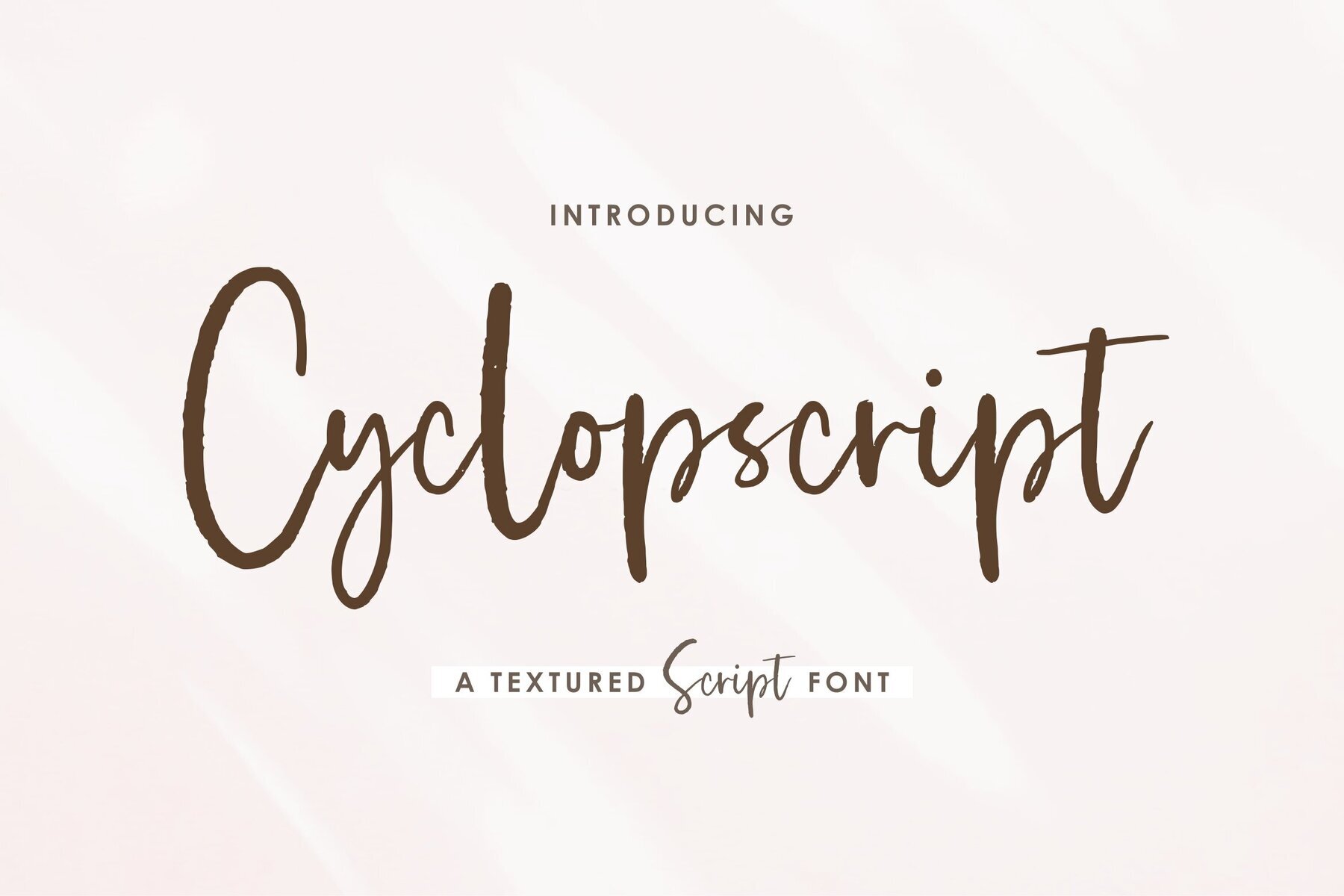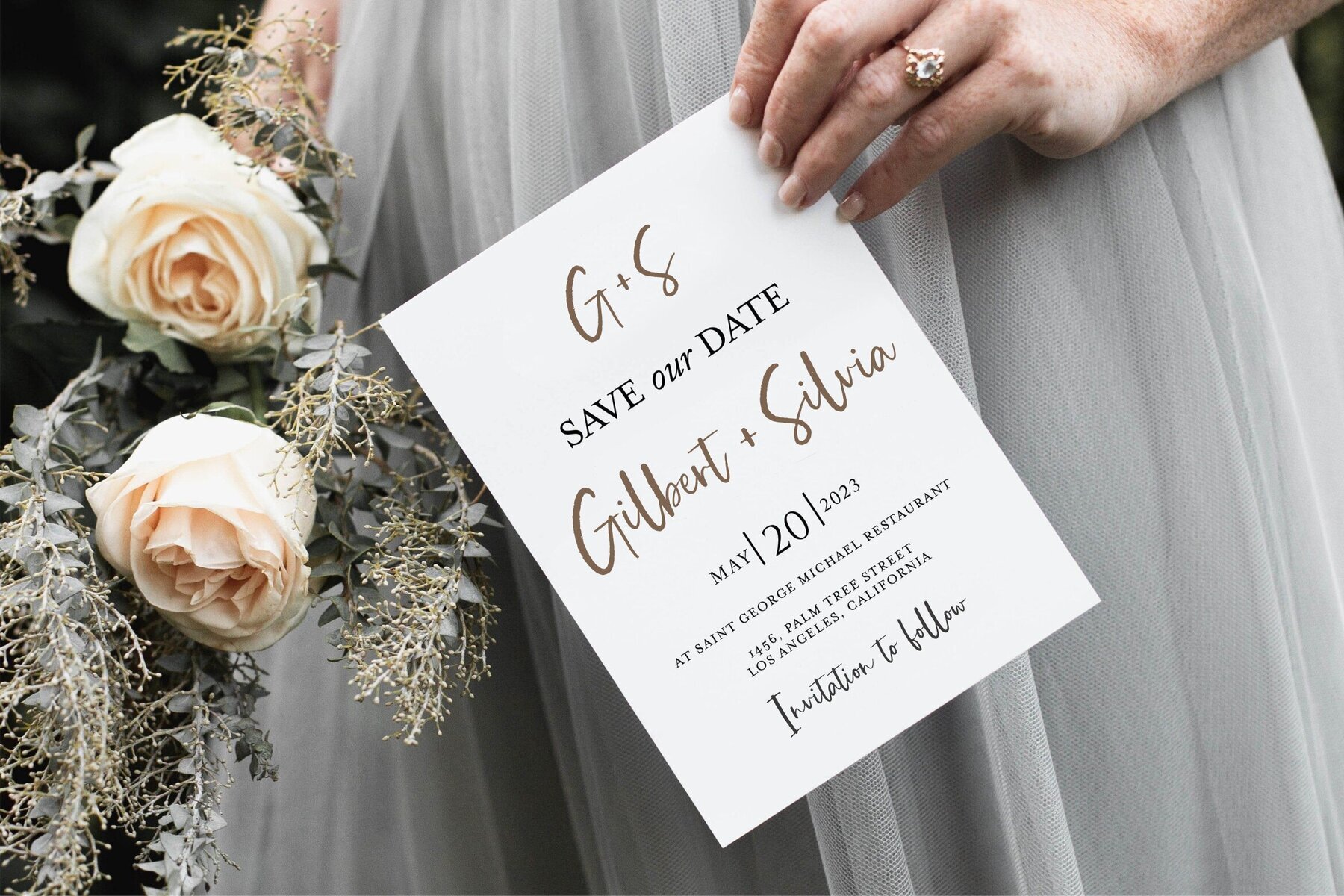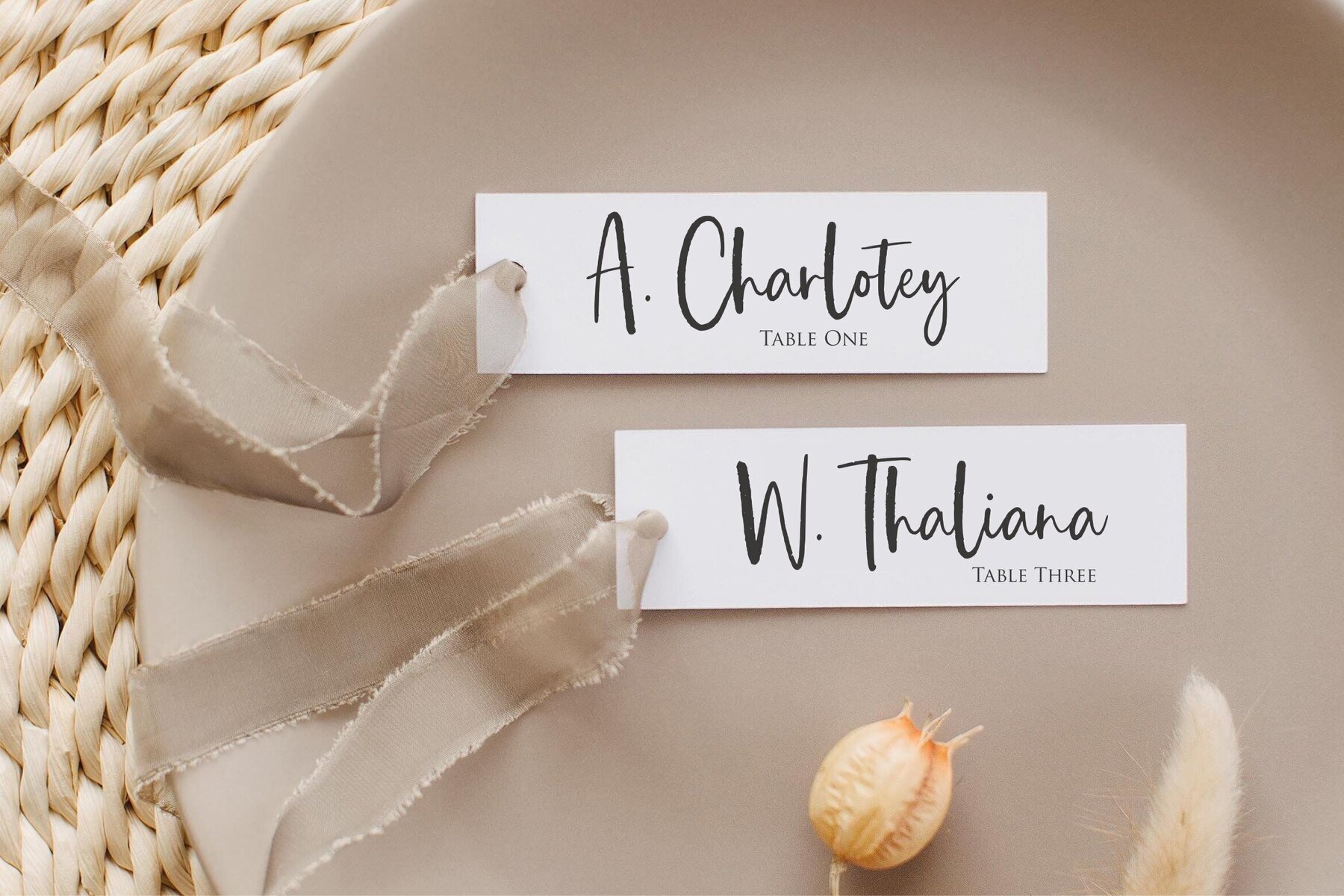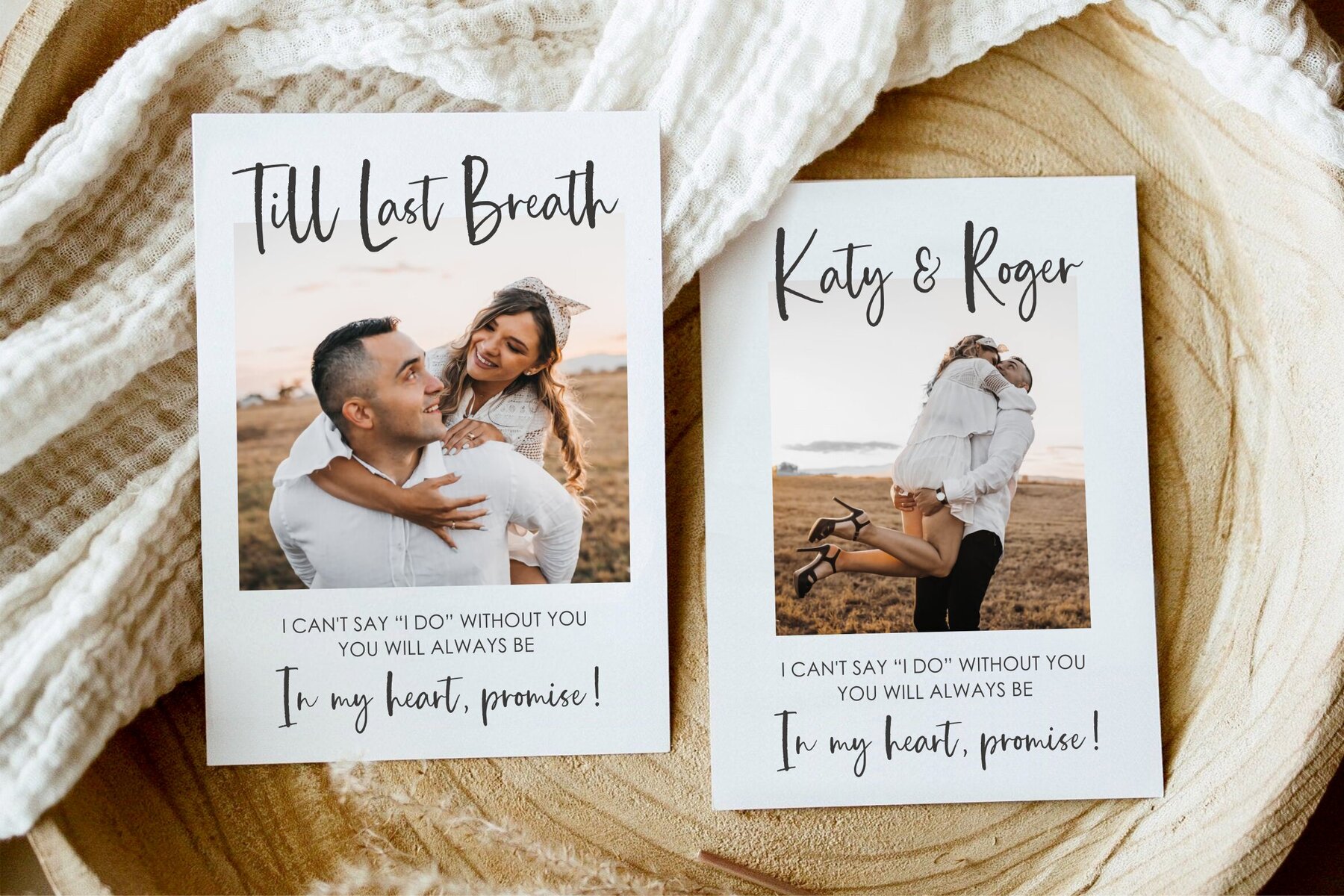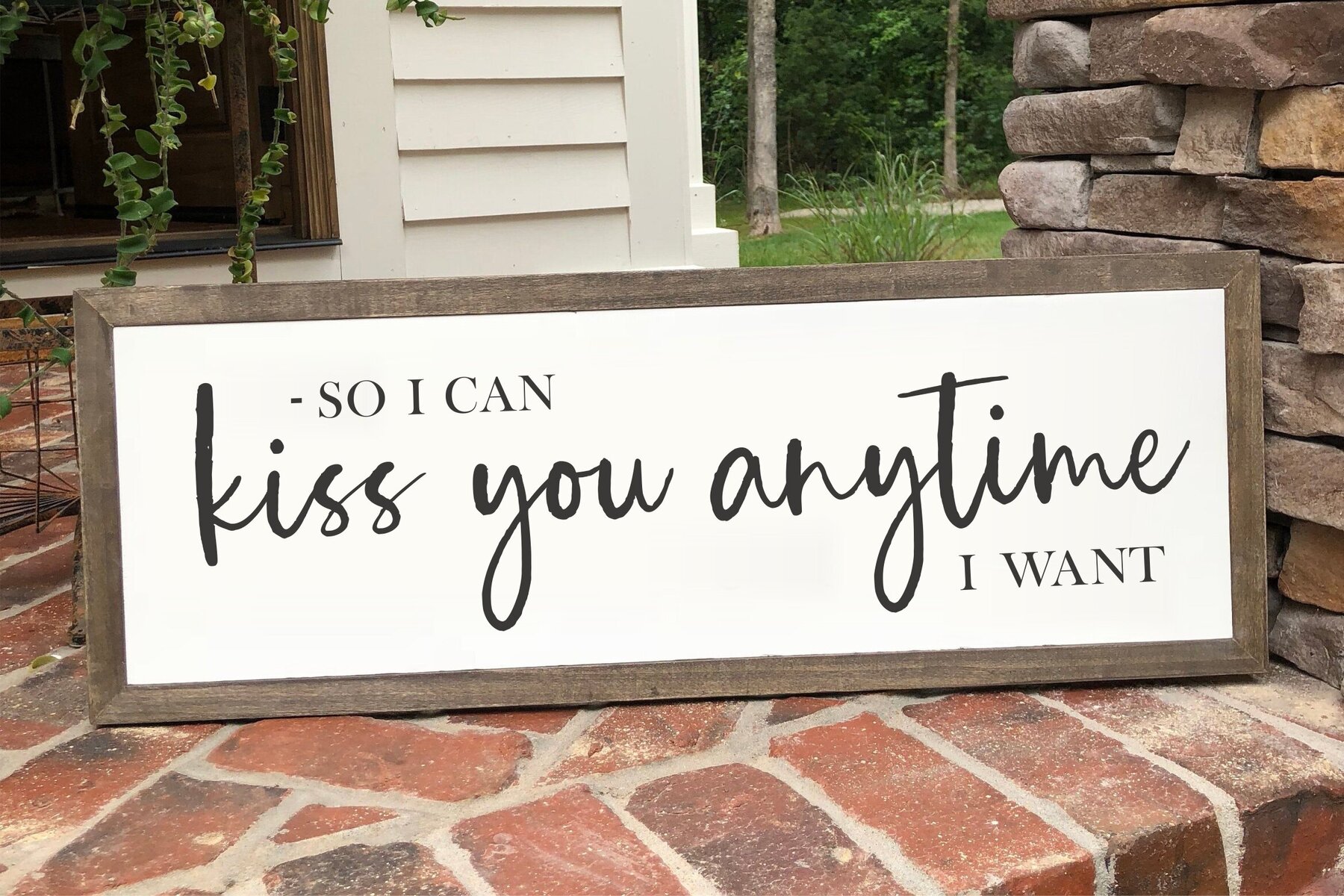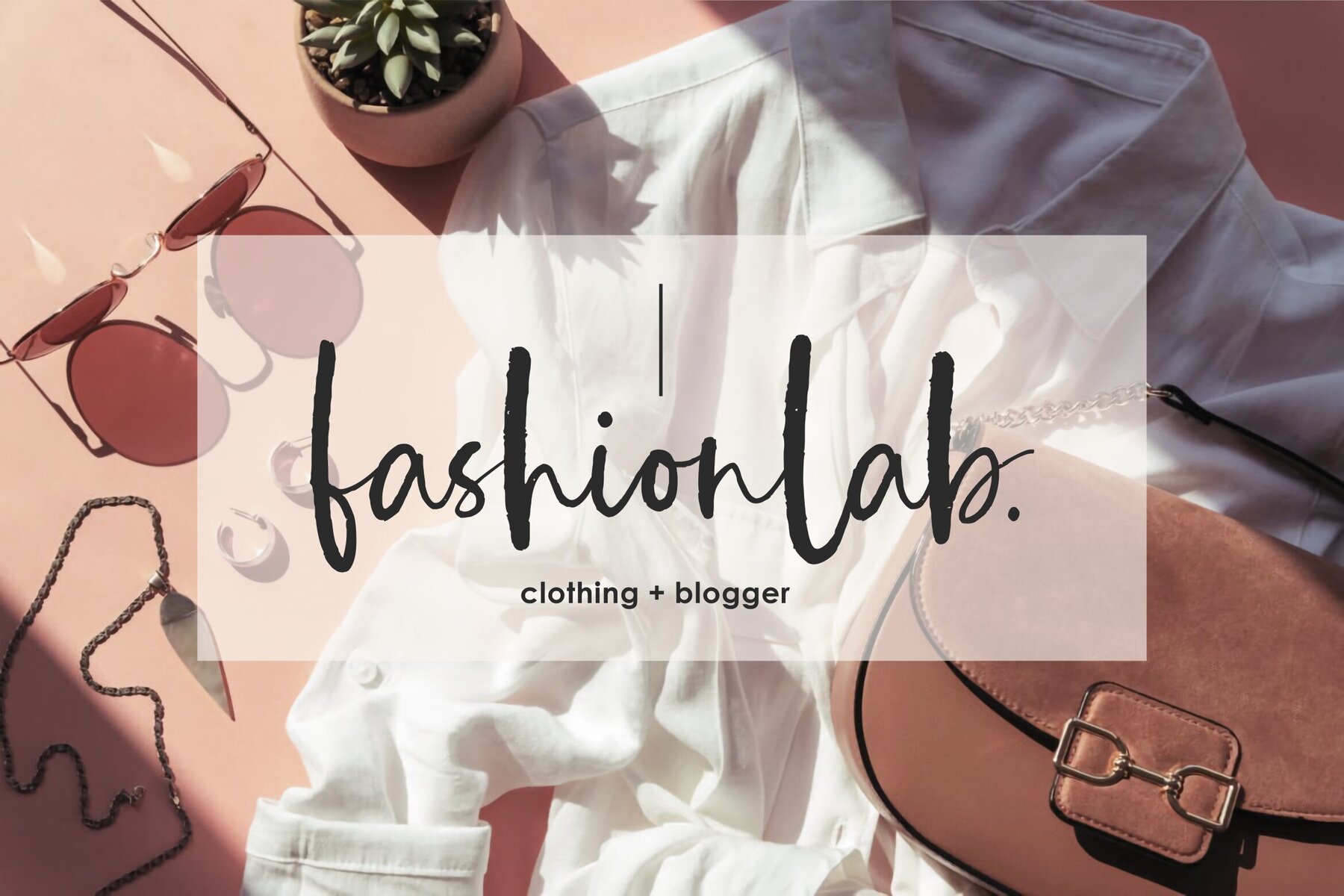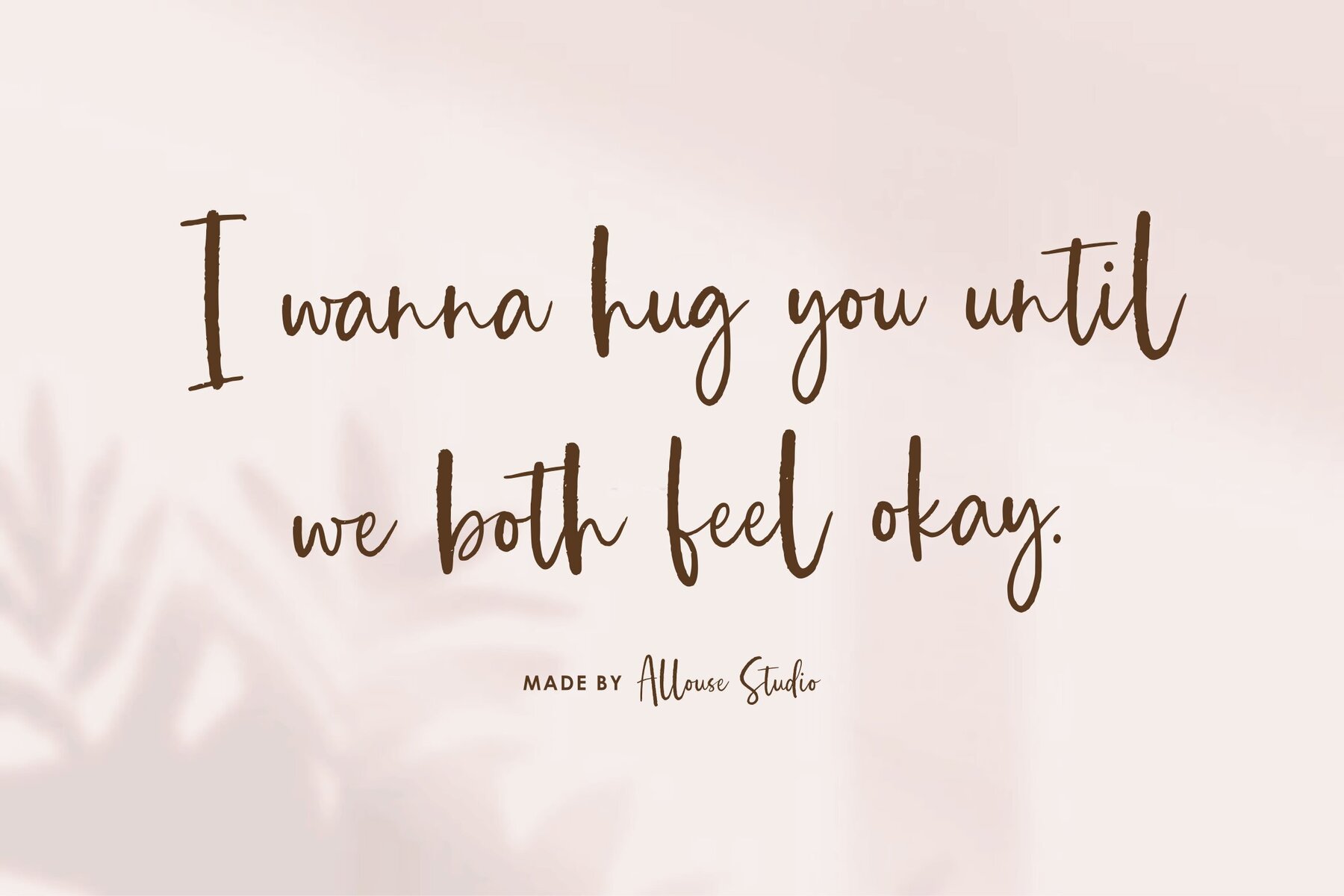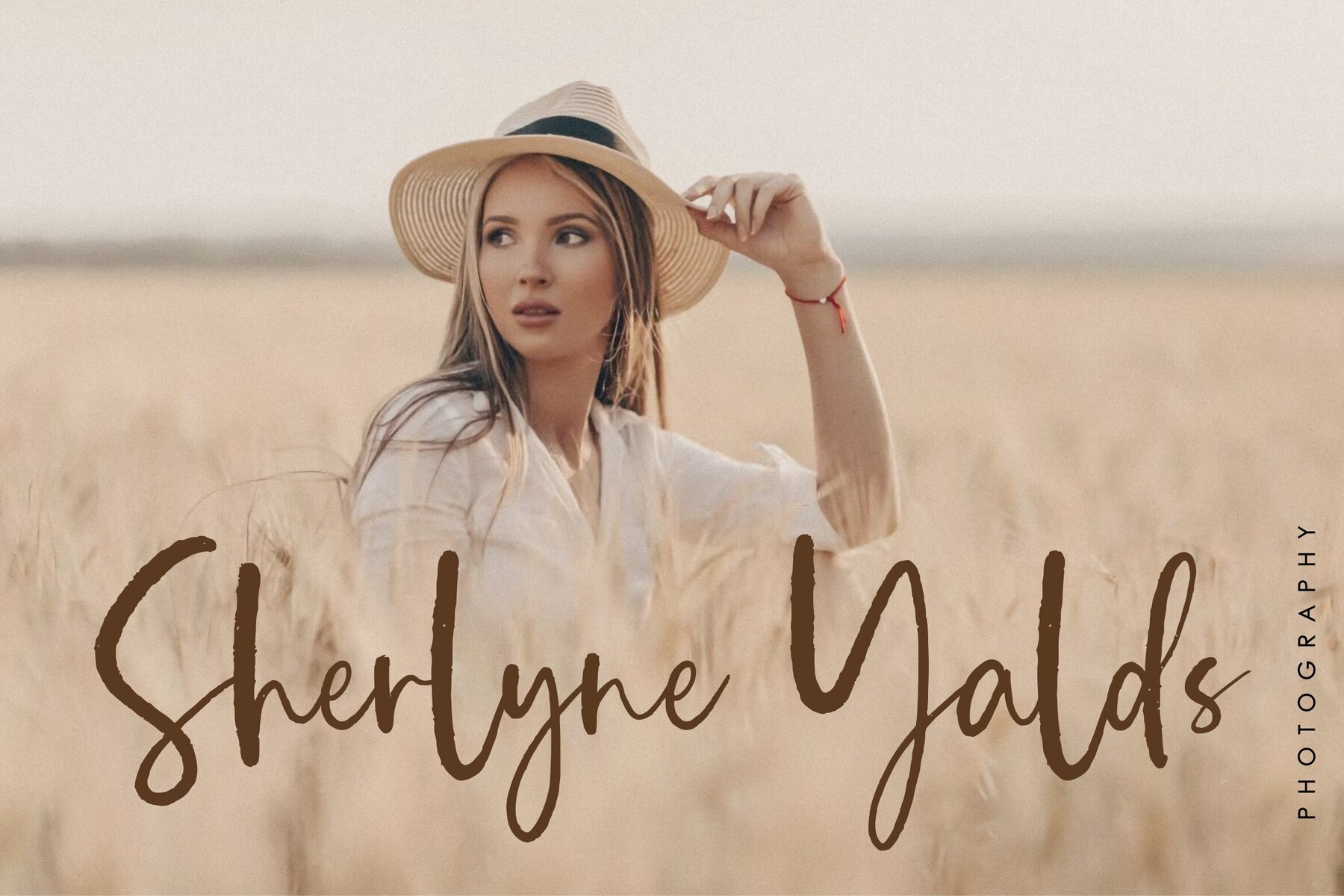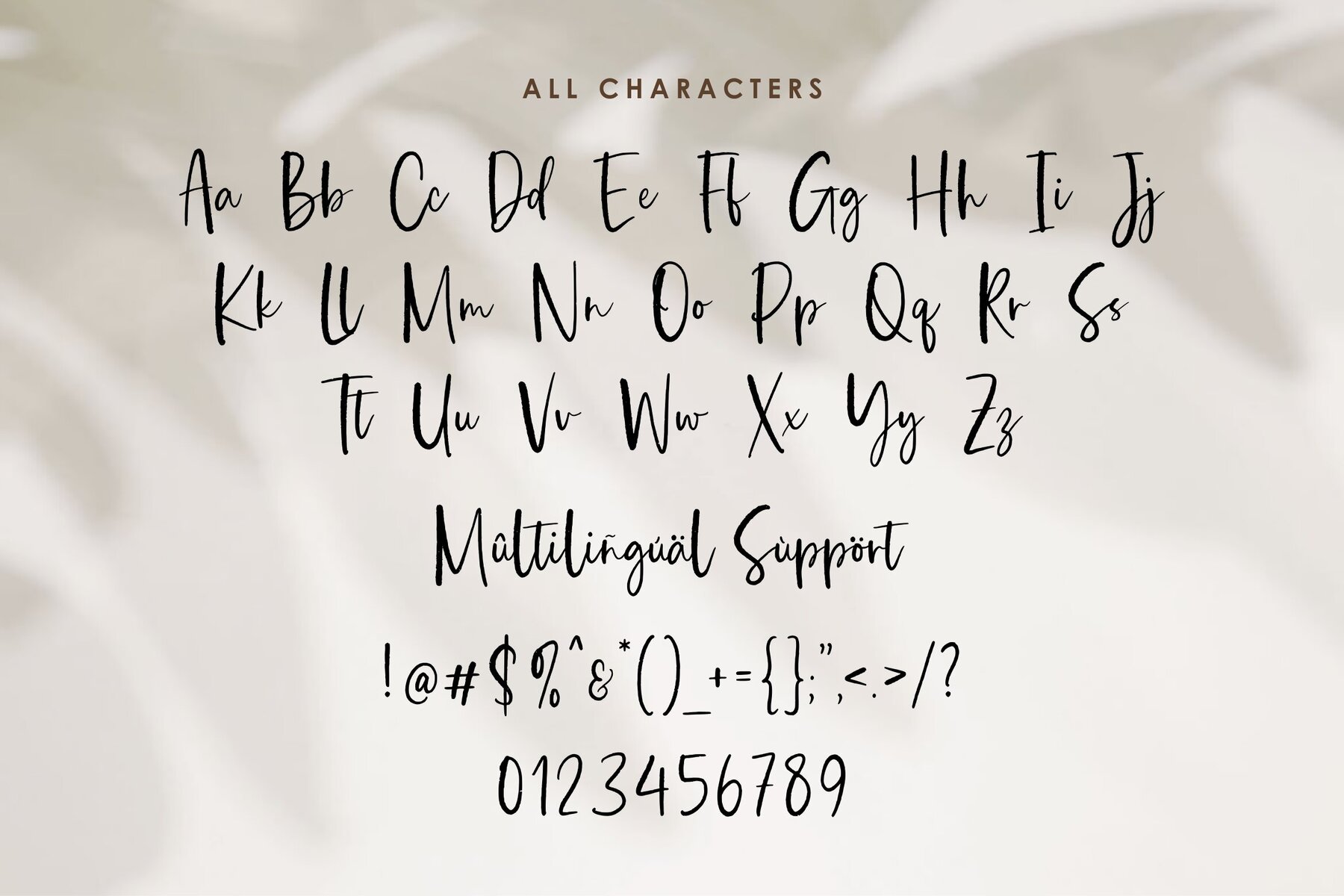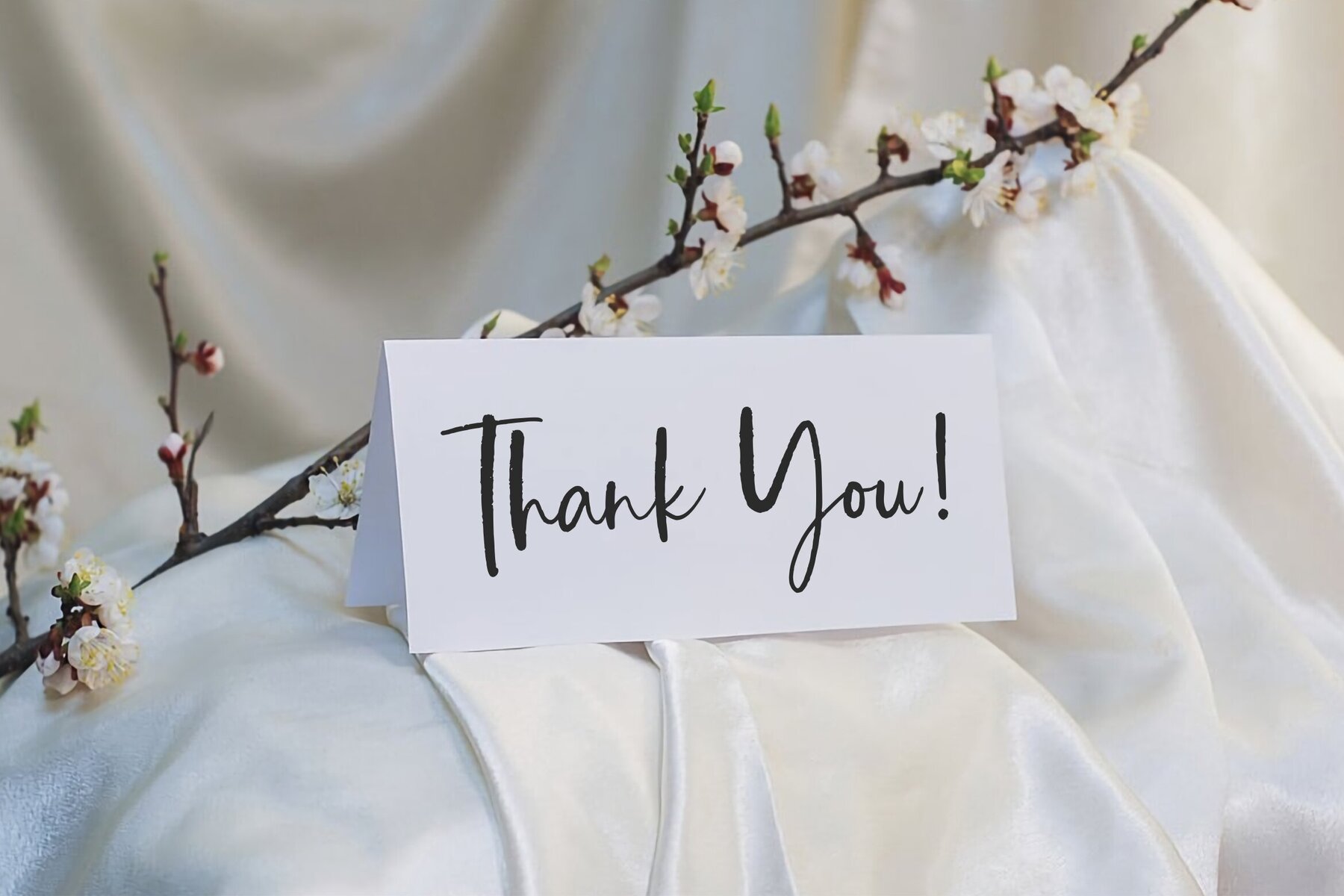
Cyclopscript Font
Cyclopscript Regular
Elegant, versatile, and infused with unique flair, Cyclopscript by Allouse.Studio is more than just a typeface - it's a game-changer for graphic designers and marketing firms. Embodying creativity, character, and genius craftsmanship, this textured font infuses tradition with innovative design elements. Perfectly suited for product packaging, branding projects, and social media campaigns, Cyclopscript garnishes every backdrop with a touch of sophistication, making it discernible in a saturated digital landscape. Whether you're working on a wedding invitation, a magazine spread or just searching for the perfect font to express words over a background, Cyclopscript promises to deliver that desired impact. Churning out a powerhouse performance across various mediums, it’s time to let this masterstroke by the distinguished Allouse.Studio breathe life into your projects! Key Features of Cyclopscript:Illuminate Your Designs with Cyclopscript: The Ultimate Textured Font by Allouse.Studio